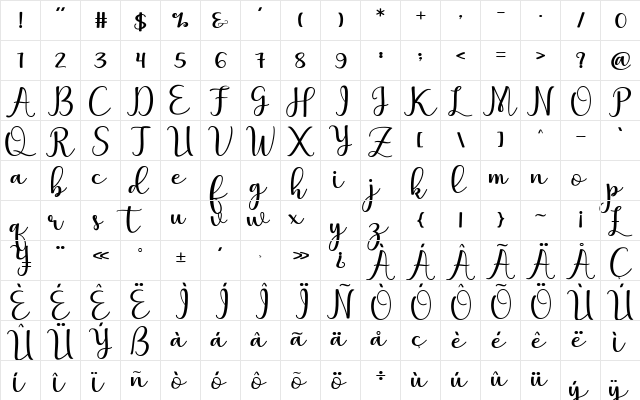
Marthina Regular
| Foundry | Uloel Design |
| Designer | Ulul Fahmi |
Design Context for Marthina Typeface
Marthina takes a measured approach to typography — its balanced proportions and neutral character make it a reliable workhorse for both digital and print work. The delicate stroke weight brings airiness and refinement to layouts.